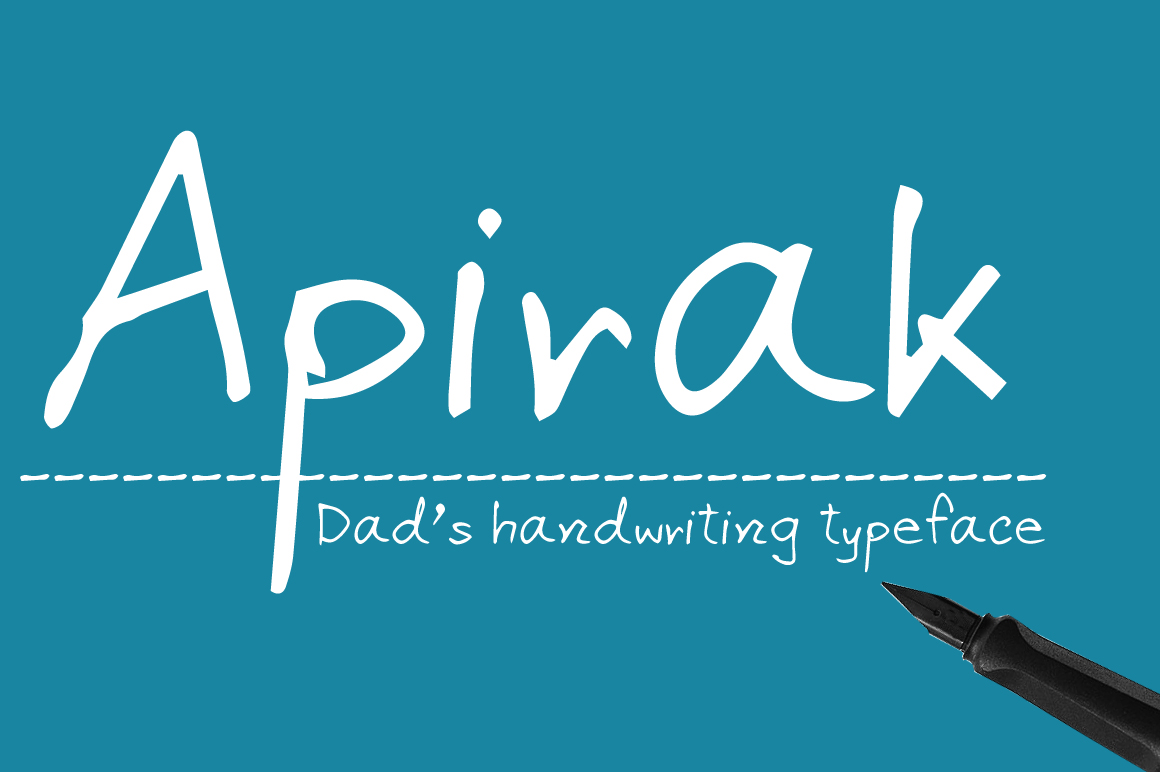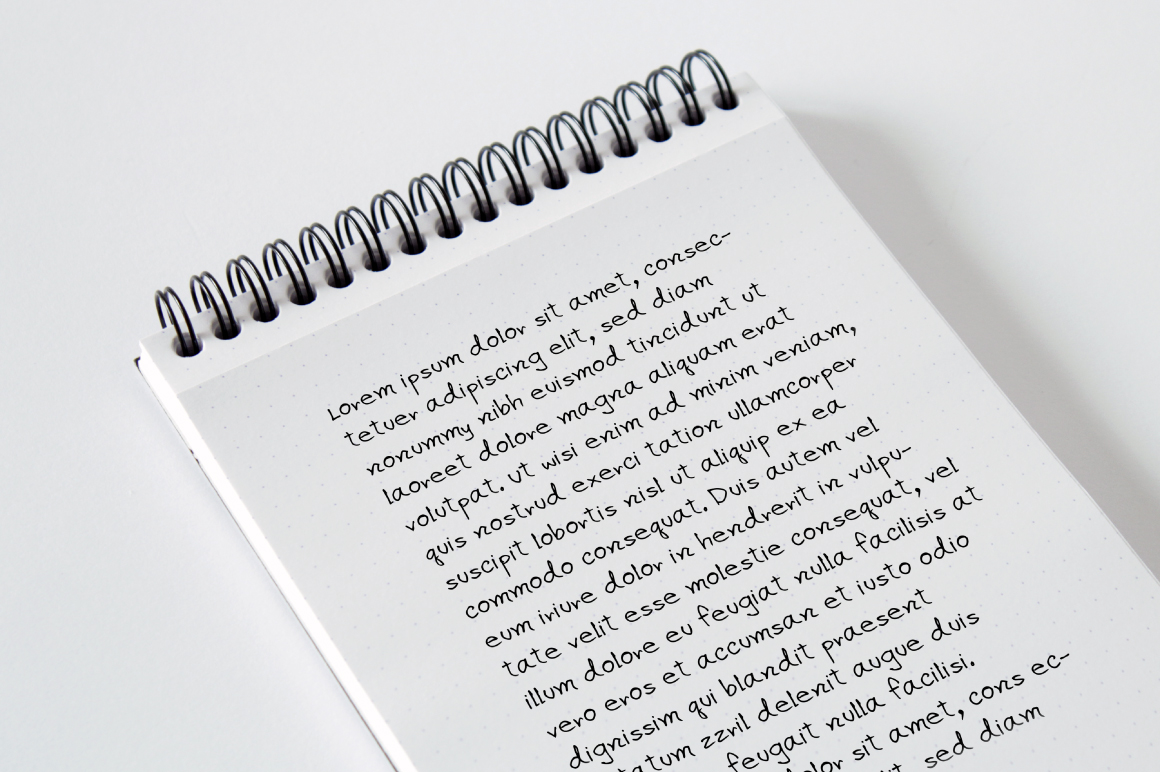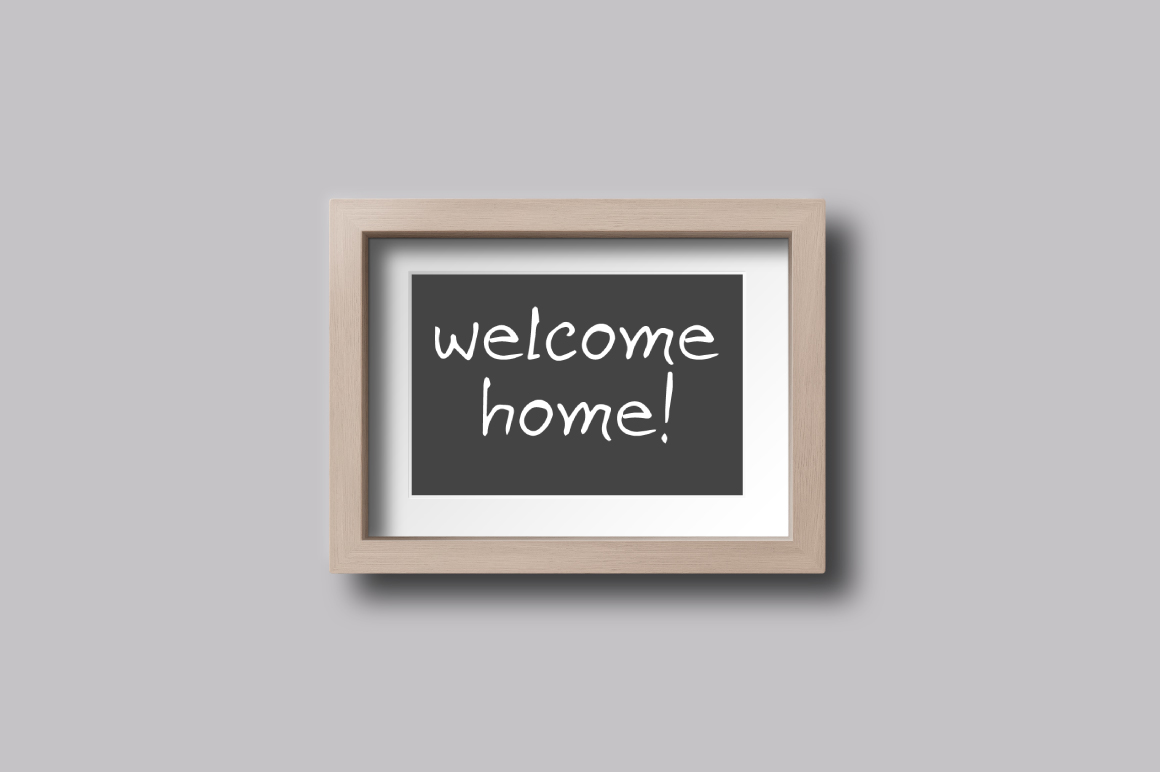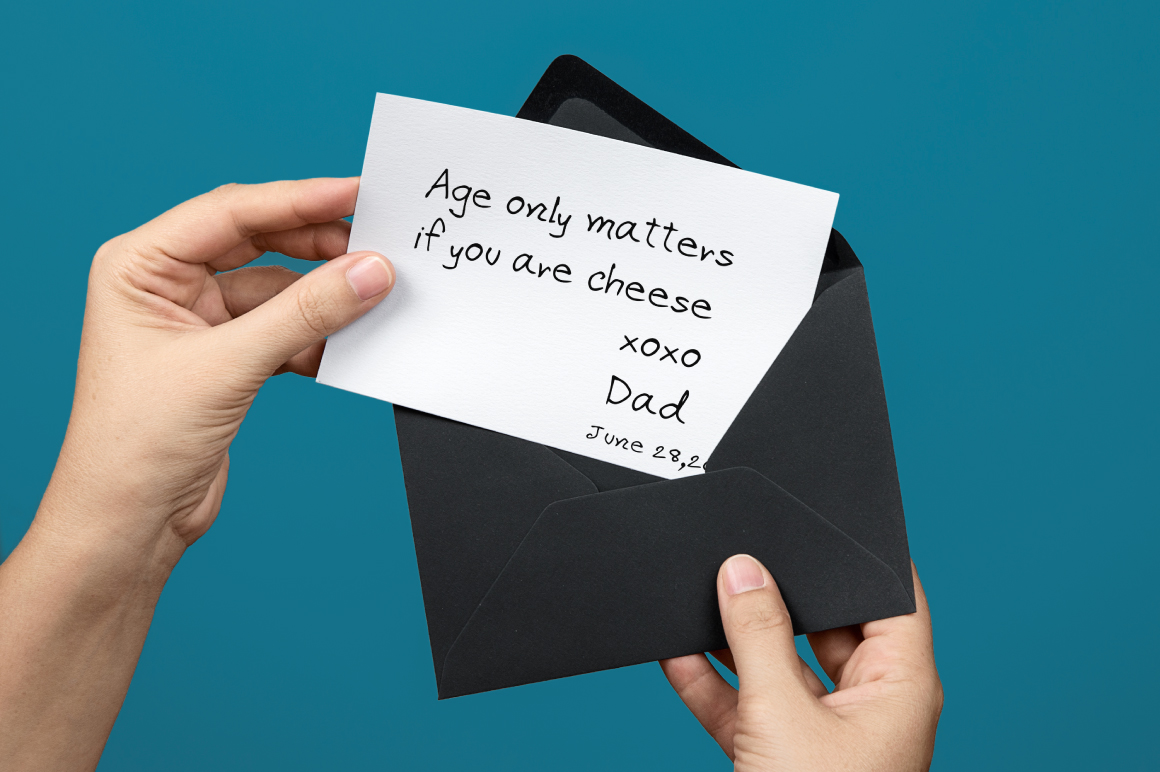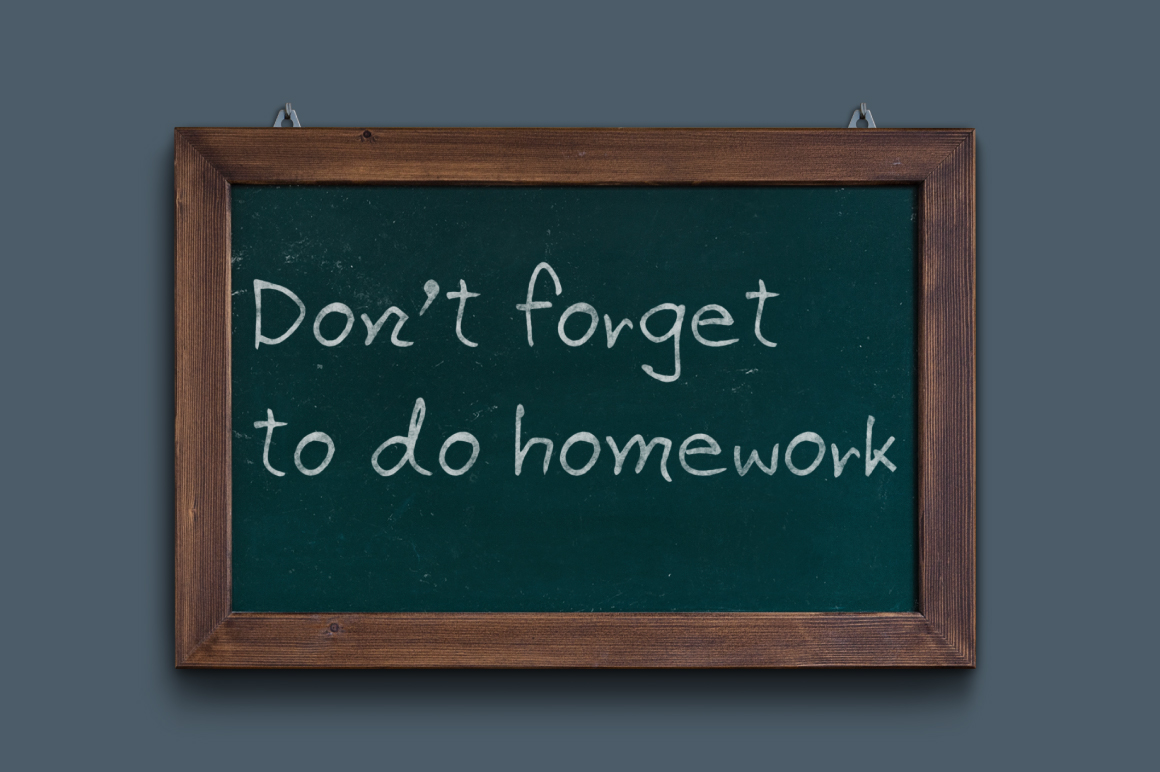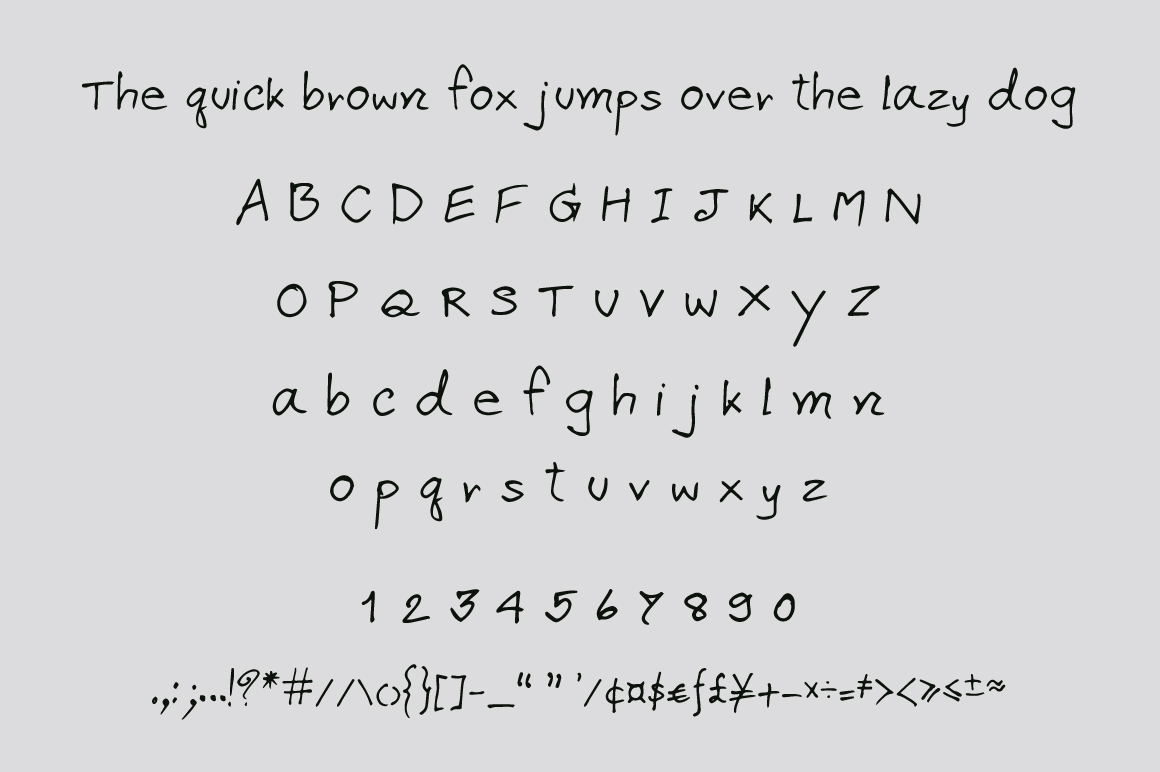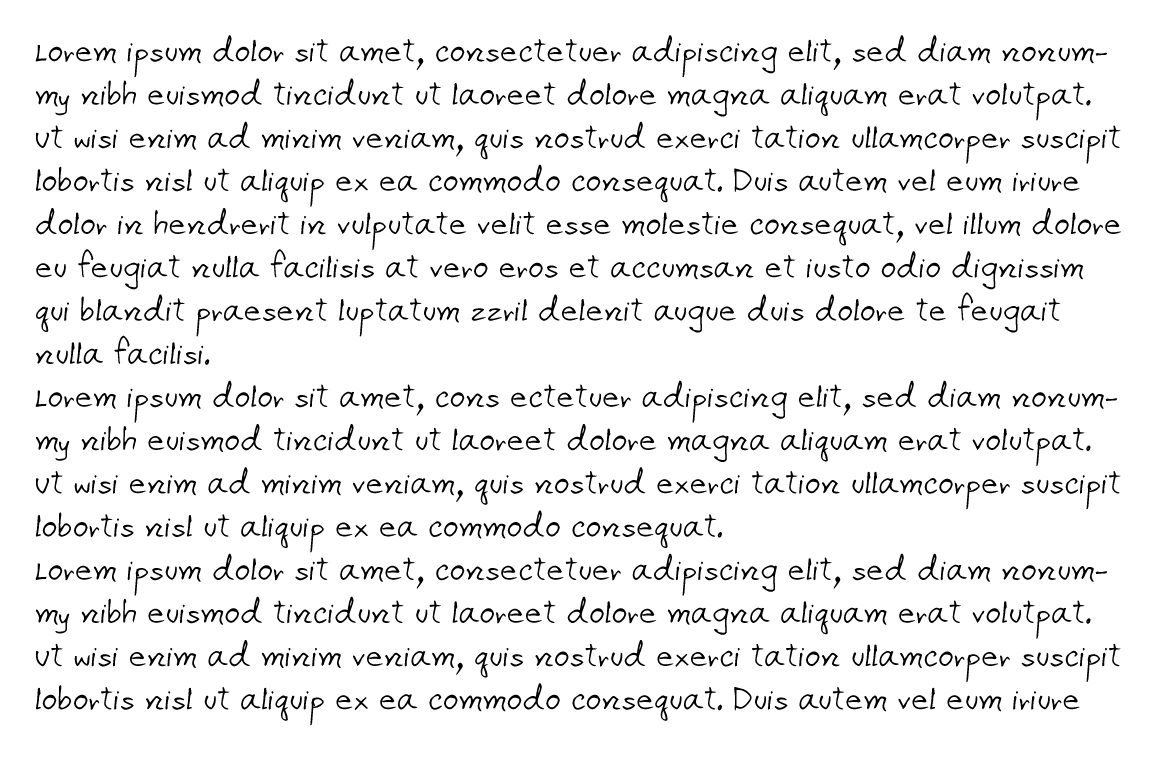
HomeScript FontsApirak Font Script Fonts Apirak Font FacebookXPinterestWhatsApp Apirak Font Poster 2 Apirak Font Poster 3 Apirak Font Poster 4 Apirak Font Poster 5 Apirak Font Poster 6 Apirak Font Poster 7 About Apirak Font Apirak is a handwriting typeface written with a fountain pen. The result is a legible, playful font. DOWNLOAD NOW People also explored Almost Textual Font Saverous Font Great Banana Font Milos Font Castlove Font A Little Cake Font Business Signature Font Bintaro Font Taken by Vultures Font 322 0 TagsApirak Font Previous articleKanda FontNext articleLuna Luna Font LEAVE A REPLY Cancel reply Comment: Please enter your comment! Name:* Please enter your name here Email:* You have entered an incorrect email address! Please enter your email address here Website: Save my name, email, and website in this browser for the next time I comment. Personal Use Free Silver Bullet Personal Use Free Read more about this font Lixdu Personal Use Free Read more about this font Romansya Personal Use Free Read more about this font Choco Shake Font Personal Use Free Read more about this font BLOG Top 10 Handwritten Fonts That Elevate Your Designs Top 10 Handwritten Fonts That Will Elevate Your Designs Handwritten fonts bring a warm, personal touch to every creative project. Whether you're designing logos, invitations,... How to Install and Use Fonts on Windows, macOS, and Web Projects Fonts That Capture the Spirit of New York City Best Fonts for YouTube Videos: Make Your Thumbnails Stand Out